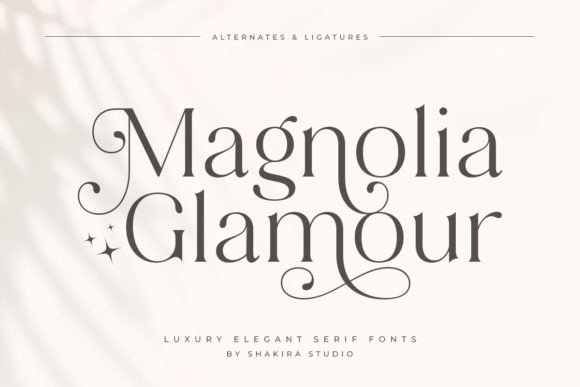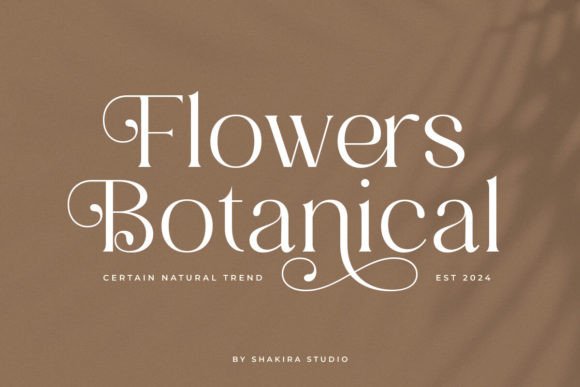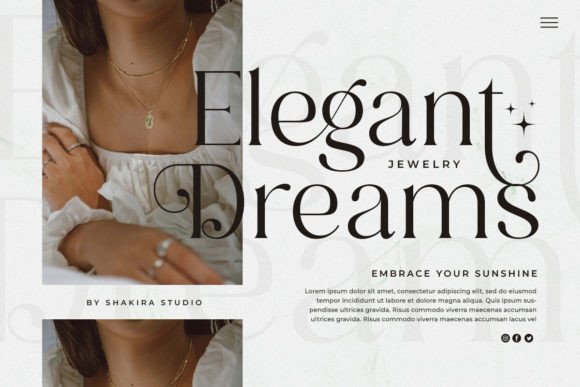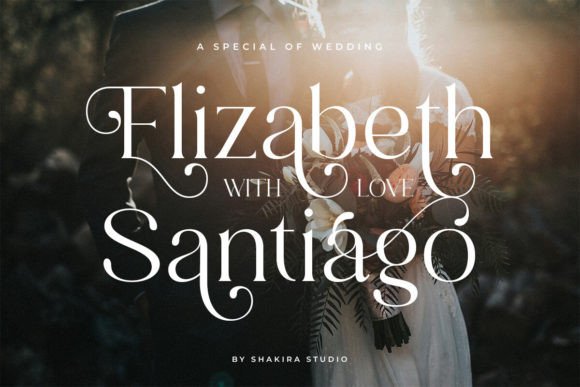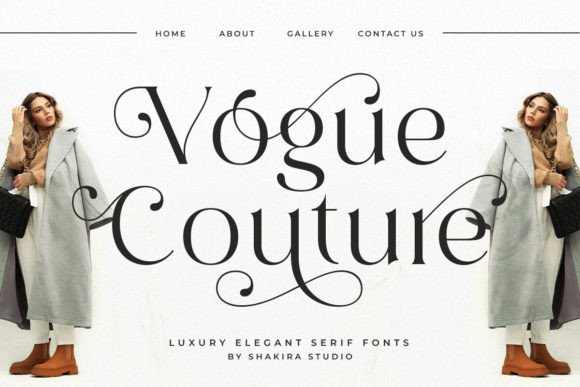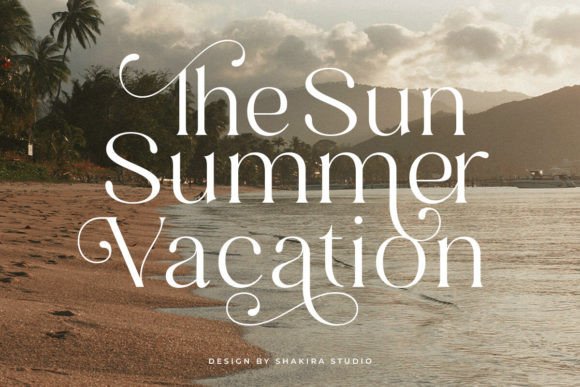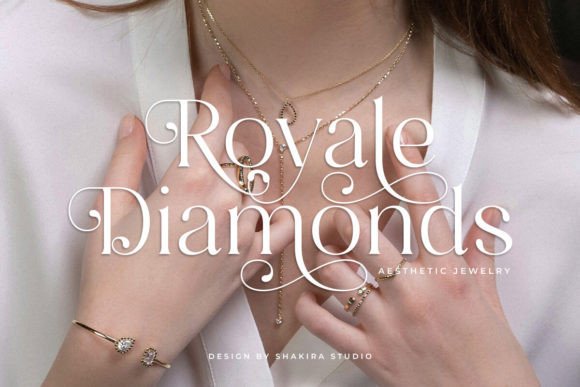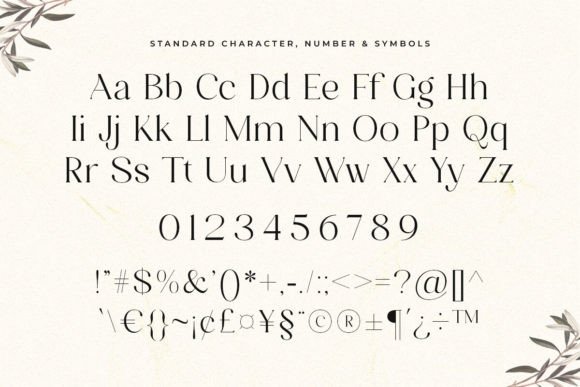
Magnolia Glamour Font
Magnolia Glamour is more than just a font; it’s a statement of sophistication and opulence. Perfectly embodying the essence of #ElegantLuxury and #TypographyTrends, Magnolia Glamour is crafted to elevate your most prestigious design projects. With its luxurious characters, stylish alternates, and exquisite ligatures, Magnolia Glamour brings a touch of class to any creation. Ideal for high-end branding, wedding invitations, or premium packaging, this font ensures your work stands out with elegance and grace.